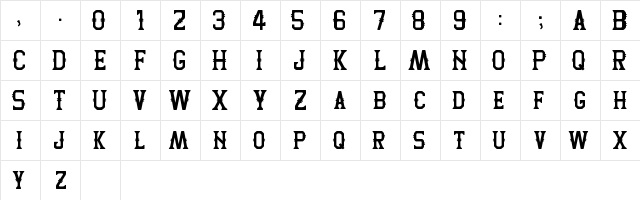
Two Peaks Regular
| Foundry | Jaime Rangel Castro |
| Designer | Jaime Rangel Castro |
Design Context for Two Peaks Typeface
Two Peaks takes a measured approach to typography — its balanced proportions and neutral character make it a reliable workhorse for both digital and print work.